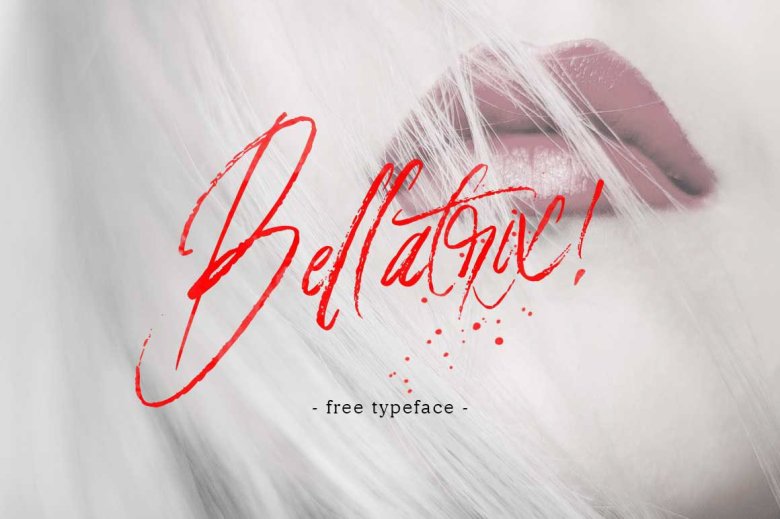
Bellatrix Handbrush Font
Hi world! Started a new day with a brush font, it was designed manually. Introducing Bellatrix Handbrush Font! Bellatrix designed and shared by Pathero Studio. Bellatrix Free Typeface is a handbrush. The style of handwriting and irregular but still elegant, and you will enjoy to use this font style. This is perfect for branding projects, homeware designs, product packaging – or simply as a stylish text overlay to any background image.